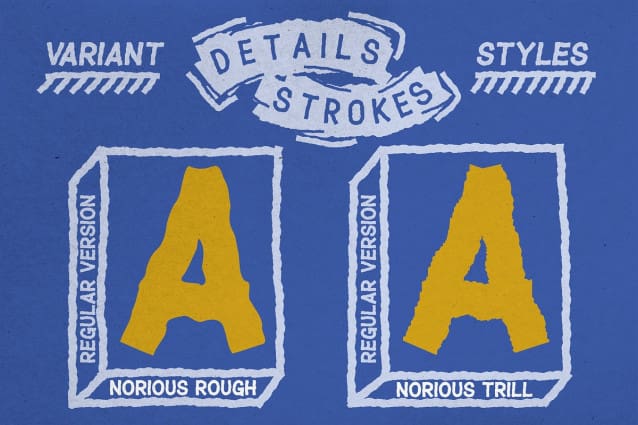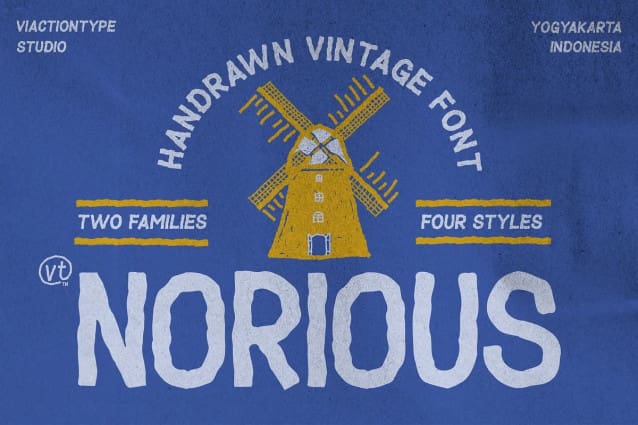
Norious Display Font
Norious Display Font is a bold, vintage-inspired typeface that brings a raw, hand-drawn aesthetic to your design projects. Crafted with rough, sketchy strokes and a rugged charm, Norious captures the essence of handcrafted typography with its unique, organic feel. Perfect for projects that need a touch of retro, rebellious flair, Norious is ideal for logos, posters, branding, and more.